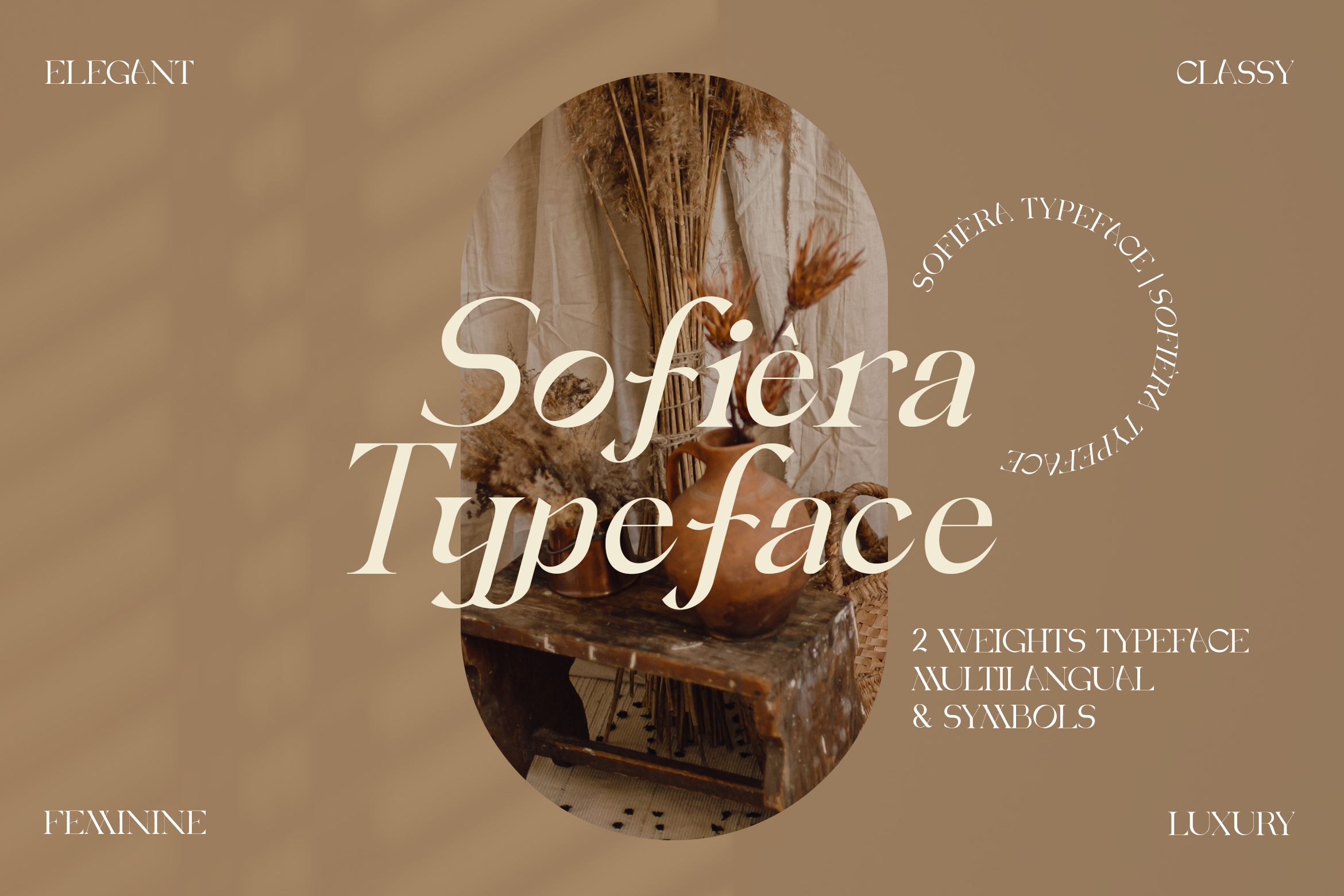
Sofiera is a New Luxury Vintage font that is both elegant and unique with smooth curves and tons of special alternative glyphs, ornament and multilingual support. It's a very versatile font that works great in large and small sizes. Sofiera is perfect for branding projects, Logo design, Clothing Branding, product packaging, magazine headers, or simply as a stylish text overlay to any background image.
- 2 Weights font
- Stylistic Alternatives